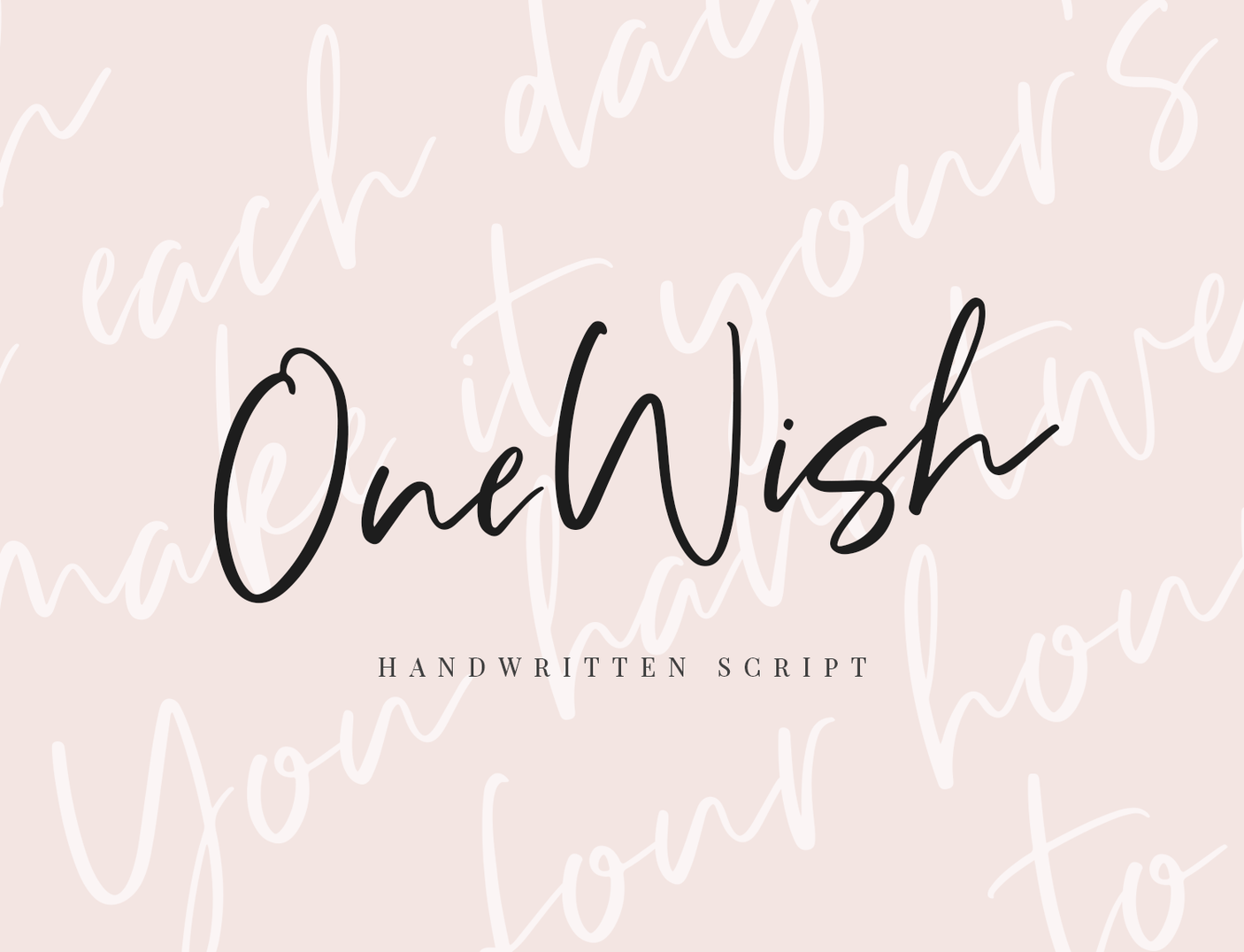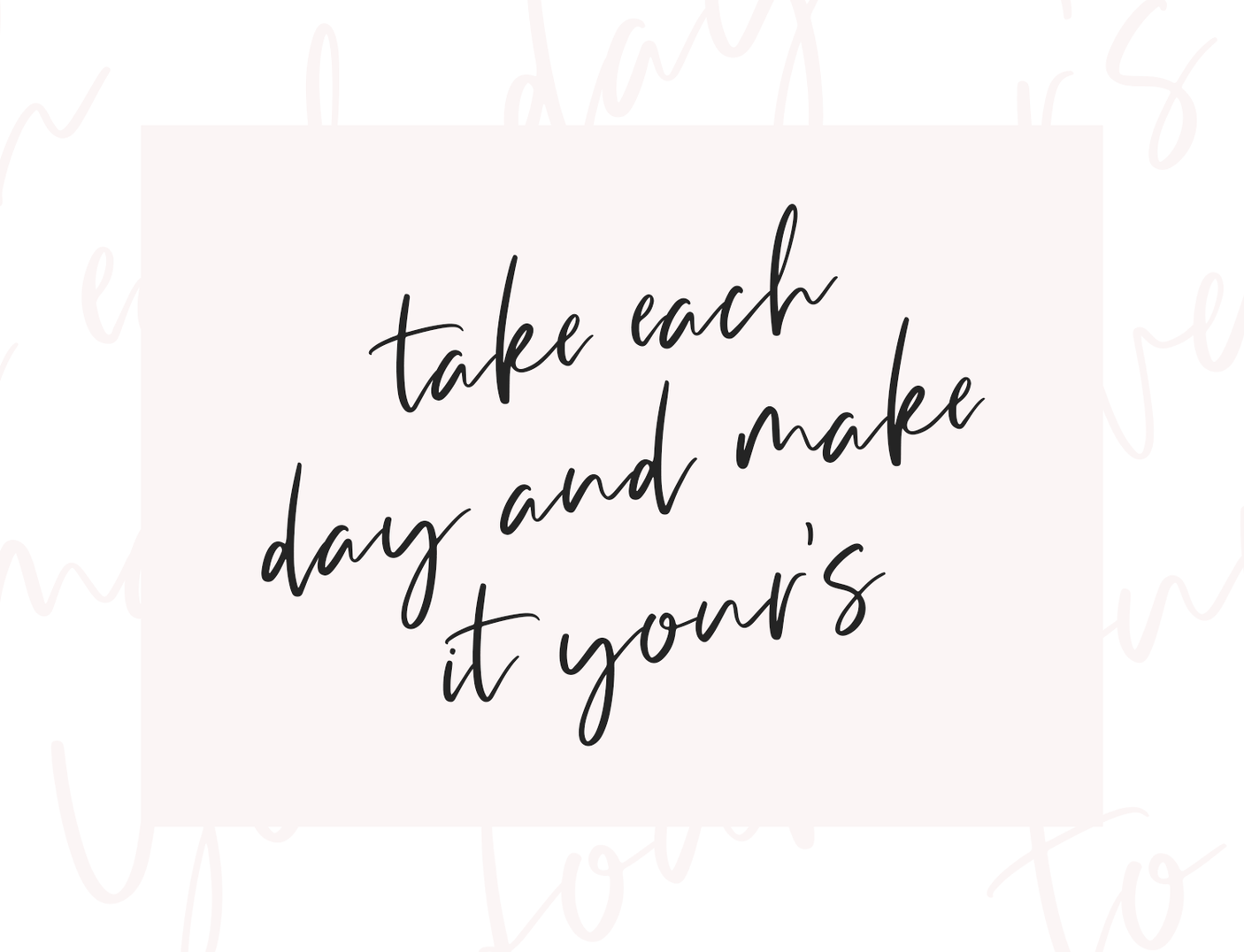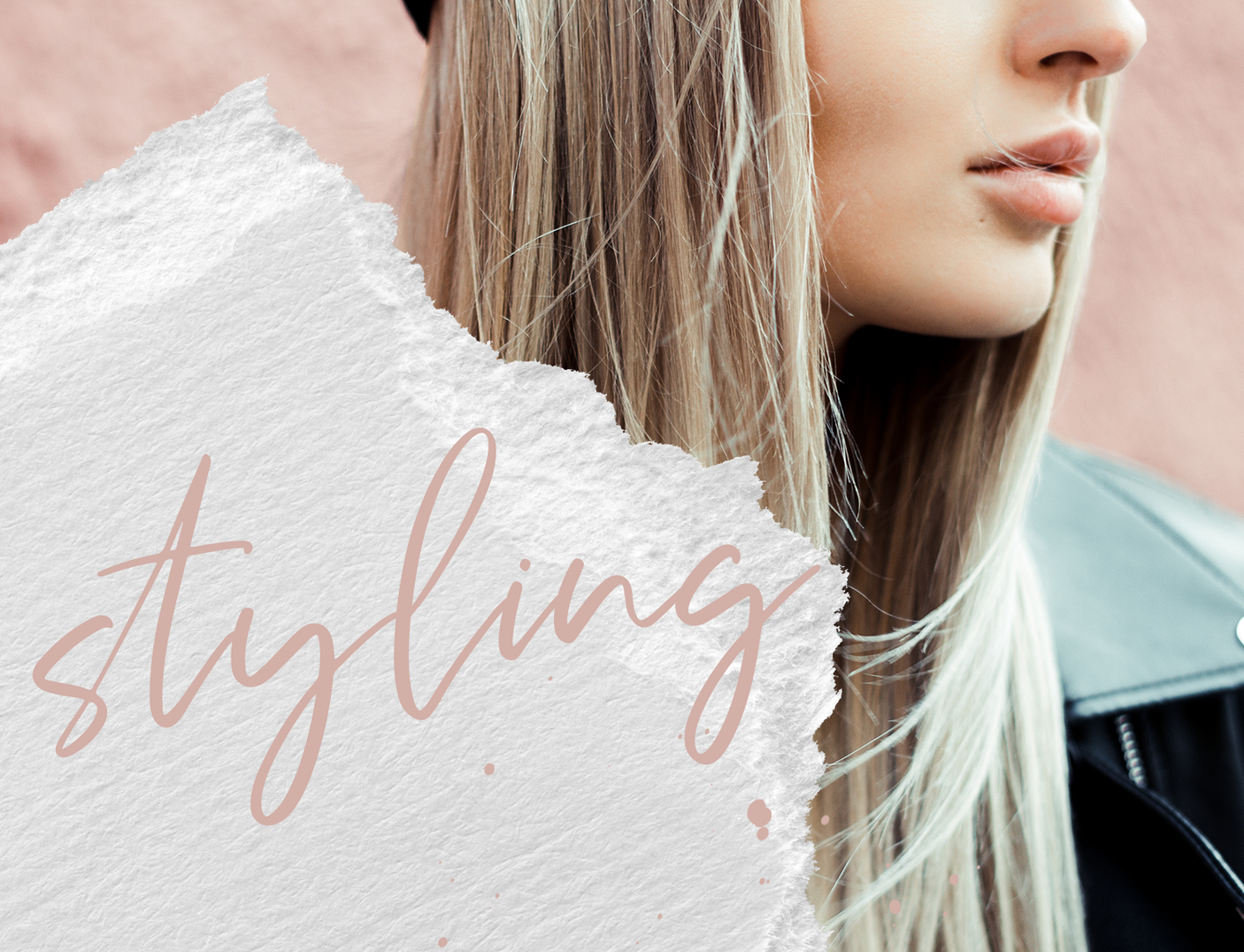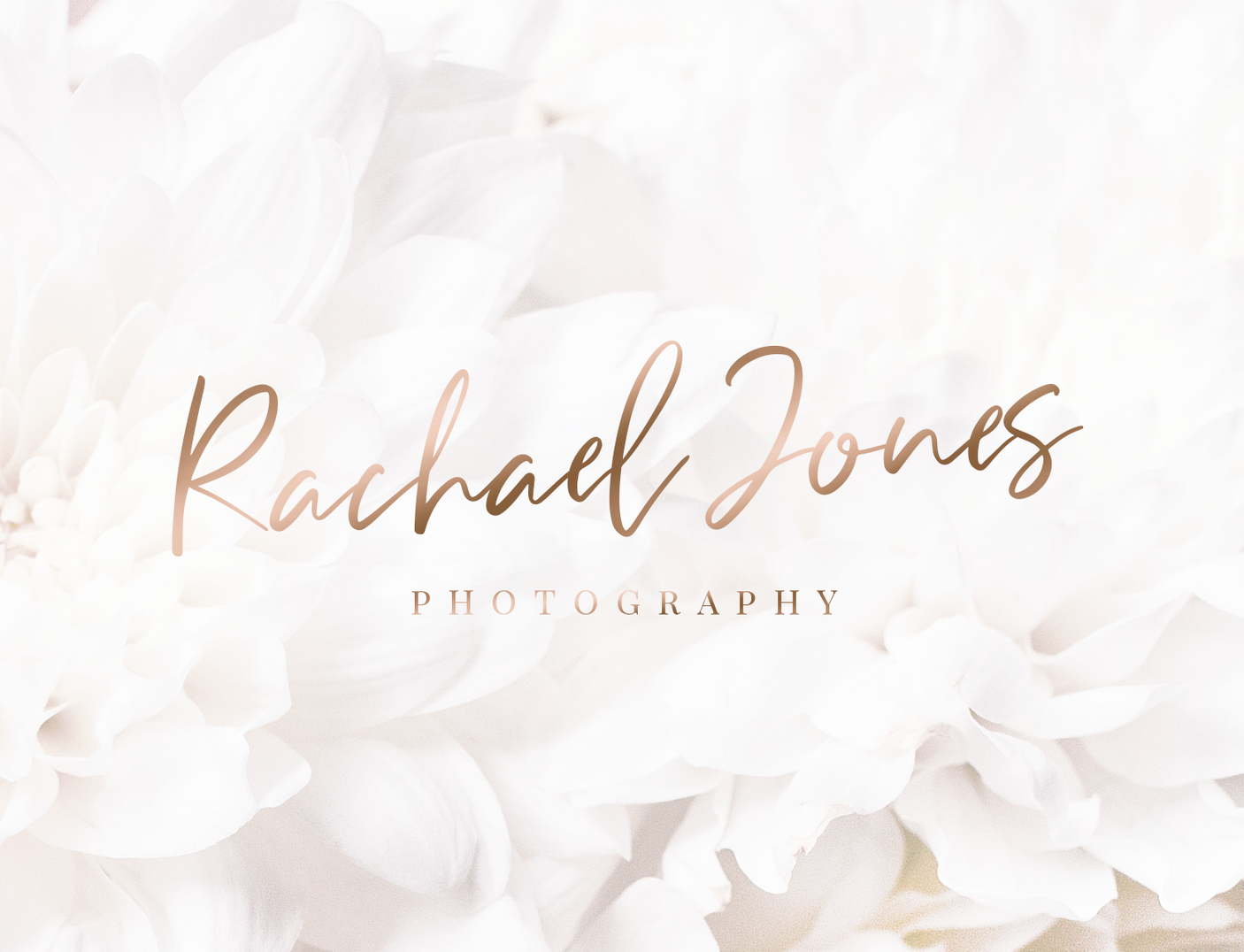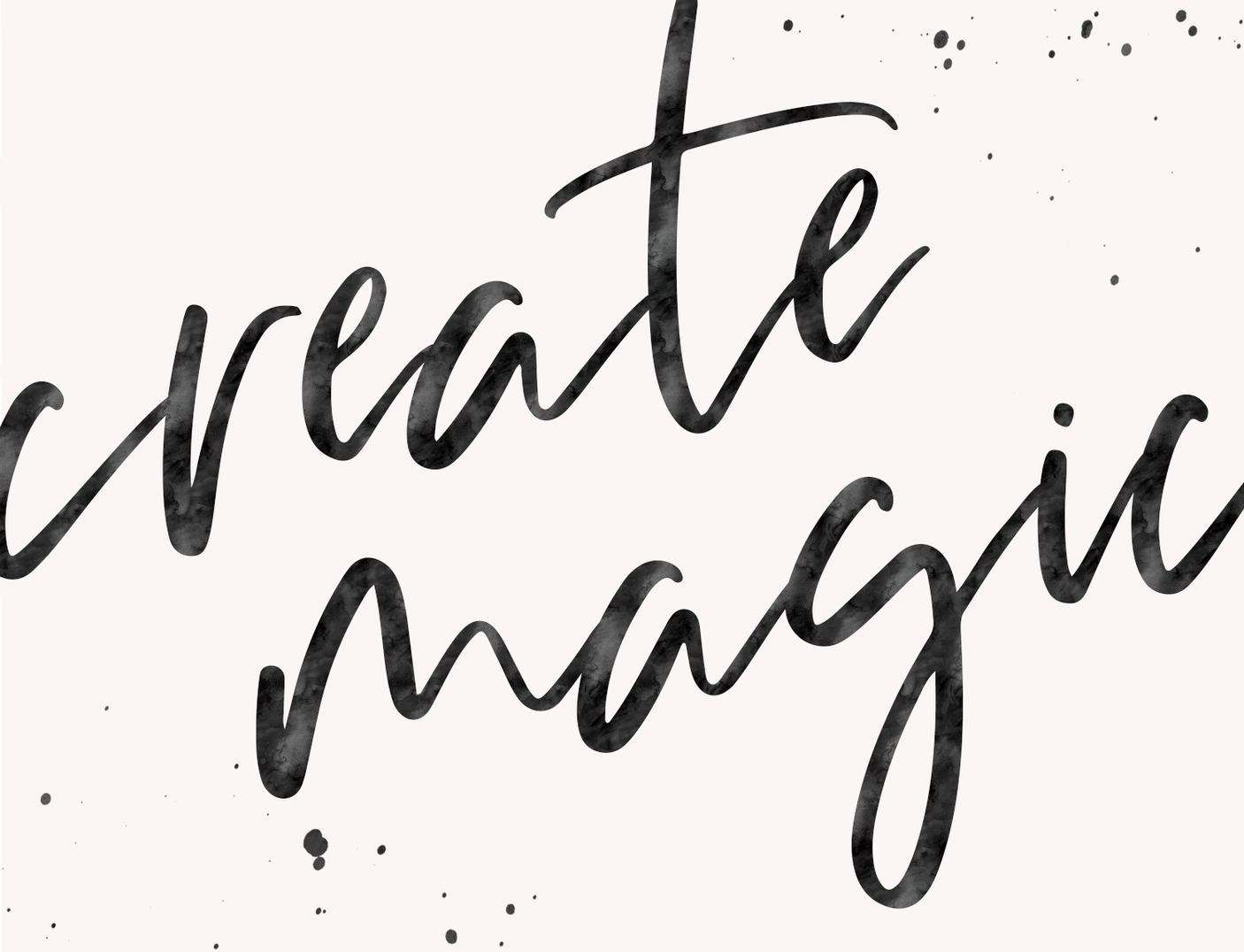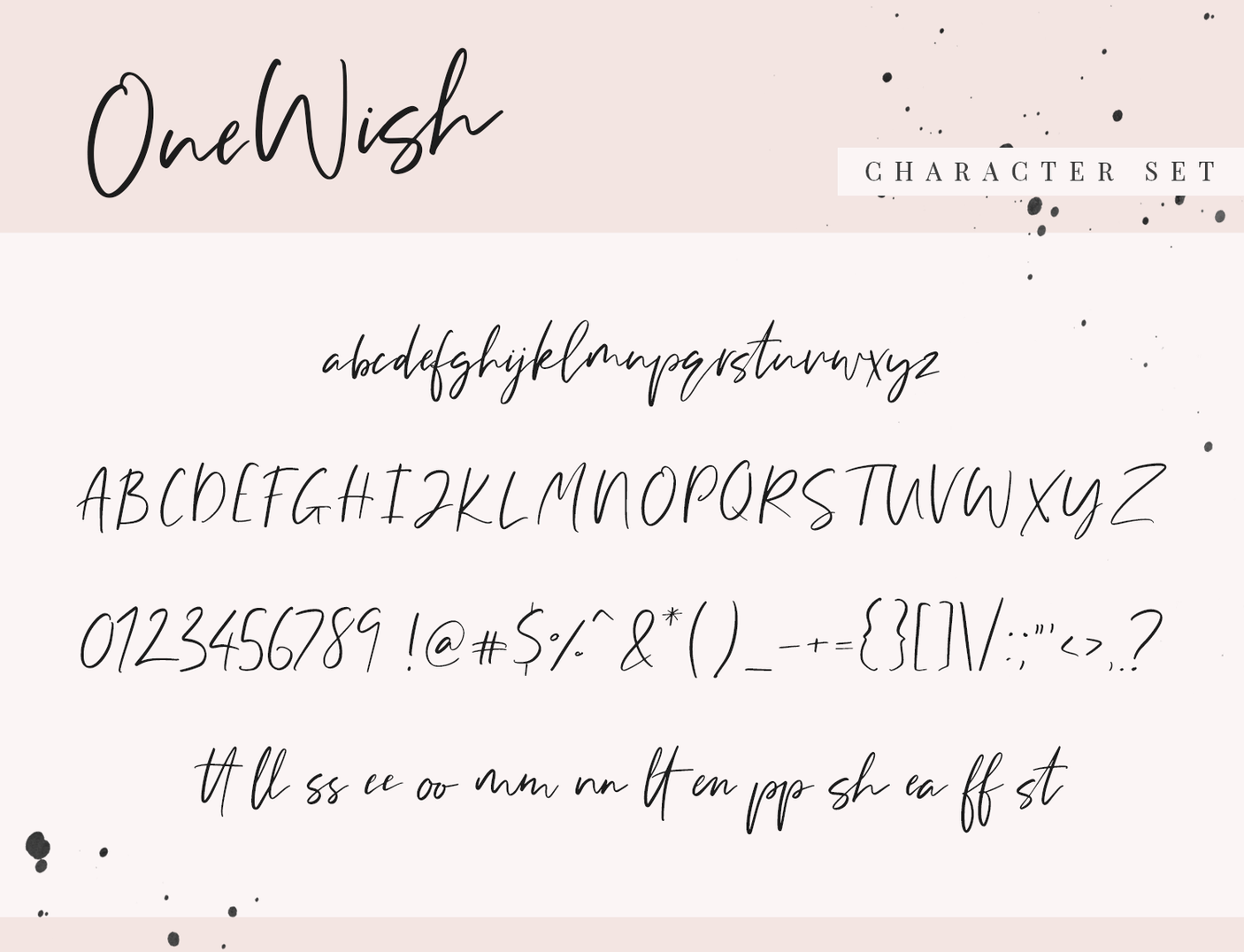
One Wish Font
Meet One Wish, a sleek handwritten script font designed to elevate your creative projects. With its modern, effortless flow, One Wish brings a chic, personal touch to everything from logos and branding to social media graphics. Perfect for the trendsetter, this font is ideal for creating standout designs that exude style and sophistication. Whether you’re crafting a bold logo or a captivating quote, One Wish adds that perfect blend of elegance and authenticity.